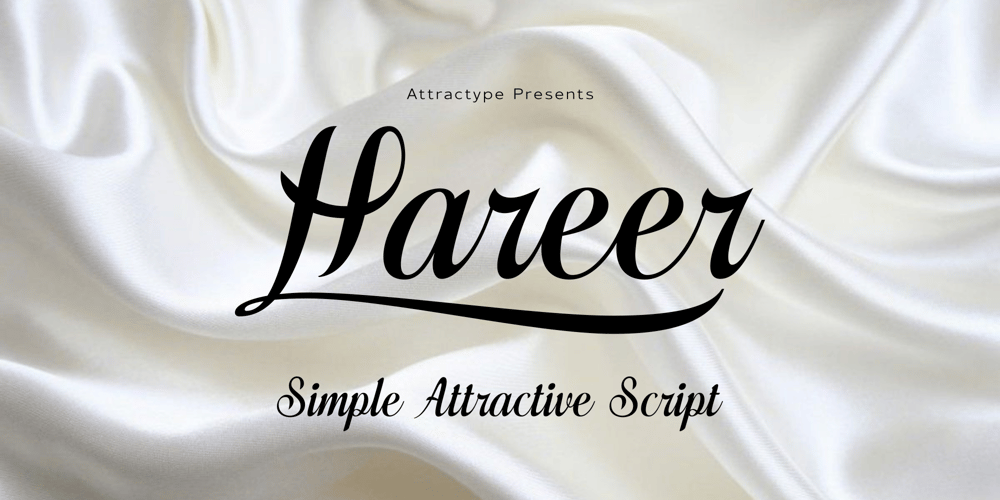
Hareer Font Family was designed by Saefulloh and published by Attractype. Hareer contains 1 styles and family package options. Hareer is an attractive and simple script font, it is carefully crafted to make your text look beautiful. This font is suitable for various projects, for example: posters, invitations, weddings, greeting cards, business cards, logos, quotes, fashion, blog headers, branding, letters, stationery, etc.Hareer has the main features Stylistic set of capital letters and several ligatures. You can access it by activating Stylistic Alternates, Stylistic Set or accessing directly on PUA Encoded “Private Use Area” (custom coded fonts) glyphs.